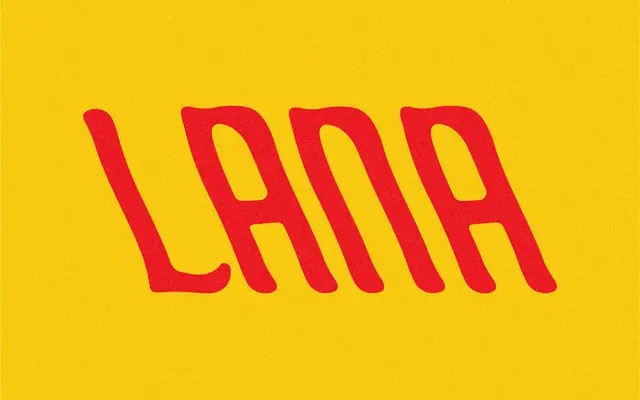
Lana
A single-weight expressive display face from Taylor Penton, conceived around the energy of spicy food and intended for stretching and squashing in branding contexts.
A one-weight display face with a lively, distorted character suited to food branding, packaging and logo work. The designer explicitly encourages warping proportions to match the visual heat of the specimen photography, making it more of a raw ingredient than a finished system. Basic Latin coverage with a limited set of accented characters keeps the glyph count at 150.
Marketed as a single-weight expressive face inspired by spicy food, with the designer encouraging stretching and squashing for effect; clearly a display typeface with a playful, editorial character rather than a neutral text face.